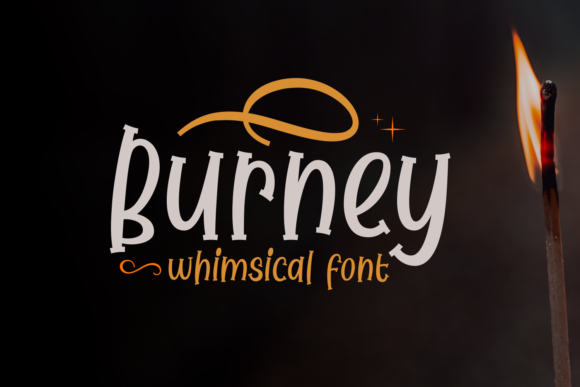
Discover the Charm of Burney Font: A Quirky Display Font for Creative Projects
Are you tired of using the same old fonts for your design projects? Look no further than Burney Font, a charming and casual display font that’s sure to add a touch of personality to your creations. With its quirky vibe and unique character, Burney is the perfect choice for designers and crafters looking to stand out from the crowd.
What is Burney Font?
Burney Font is a display font designed to make a statement. Its casual, laid-back style is perfect for projects that require a bit of personality and whimsy. Whether you’re working on a logo, a poster, or a social media graphic, Burney is sure to add a touch of charm and character to your design.
One of the standout features of Burney Font is its quirky vibe. The font has a playful, irregular feel that’s reminiscent of handwritten scripts. This makes it perfect for projects that require a bit of personality and flair.
Key Features of Burney Font
So what makes Burney Font so special? Here are just a few of its key features:
- Unique character: Burney Font has a one-of-a-kind personality that’s sure to set your designs apart.
- Casual style: The font has a relaxed, laid-back feel that’s perfect for creative projects.
- Quirky vibe: Burney Font has a playful, irregular feel that’s sure to add a touch of whimsy to your designs.
- Display font: Burney is designed to make a statement, making it perfect for headlines, titles, and other display text.
Uses for Burney Font
So what can you use Burney Font for? The possibilities are endless! Here are just a few ideas to get you started:
- Logos: Burney Font is perfect for creating unique and memorable logos that stand out from the crowd.
- Posters: Add a touch of personality to your posters with Burney Font’s quirky vibe and playful style.
- Social media graphics: Use Burney Font to create eye-catching social media graphics that are sure to grab attention.
- Invitations: Burney Font is perfect for creating unique and personalized invitations for special events.
Tips for Using Burney Font
Here are a few tips for getting the most out of Burney Font:
- Use it sparingly: Burney Font is a display font, so it’s best used sparingly to make a statement.
- Pair it with a simple font: Pair Burney Font with a simple font to create contrast and make your design stand out.
- Experiment with colors: Burney Font looks great in a variety of colors, so don’t be afraid to experiment and find the perfect hue for your design.
Burney Font is a charming and casual display font that’s sure to add a touch of personality to your design projects. With its quirky vibe and unique character, Burney is the perfect choice for designers and crafters looking to stand out from the crowd. Whether you’re working on a logo, a poster, or a social media graphic, Burney Font is sure to make a statement.